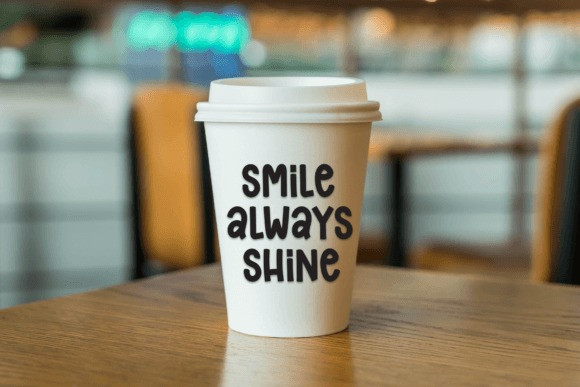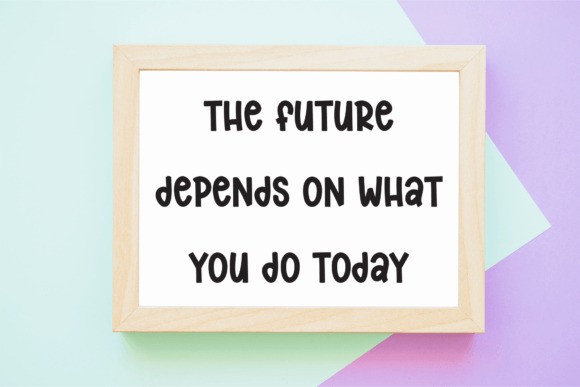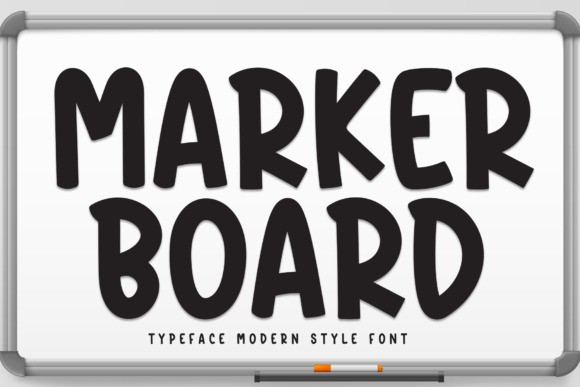
Marker Board Font
Marker Board Font is a sweet and friendly handwritten font. Cute yet versatile, this font is ideal for writing wedding invitations, cards, or any other design that might need a lovely touch!